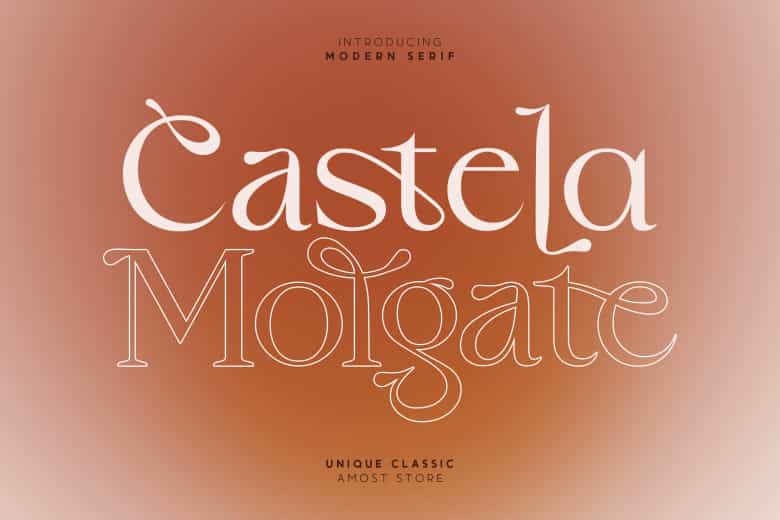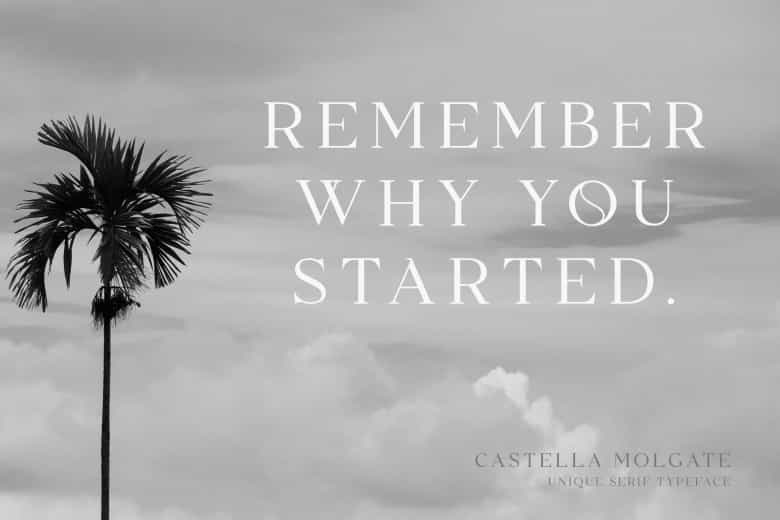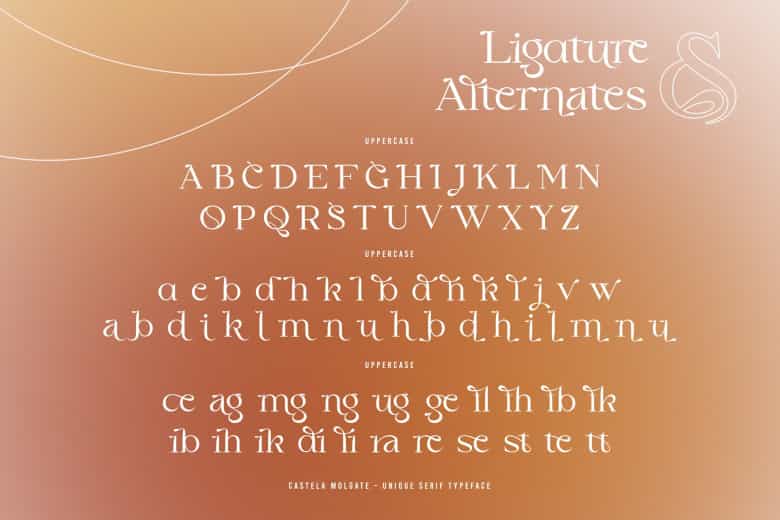
Discover Castela Molgate Font, part of the Serif collection—a versatile and unique font perfect for adding a personal touch to your projects. Download it for free and enjoy crafting designs with style, from invitations to social media posts. This font is available exclusively for personal use, giving you the freedom to create without limits. Unlock your creativity with Castela Molgate Font today!
Castela Molgate is a classic yet distinctive serif font. No matter the subject of your work, this font can add visual interest and enhance any piece of artwork more attractively.